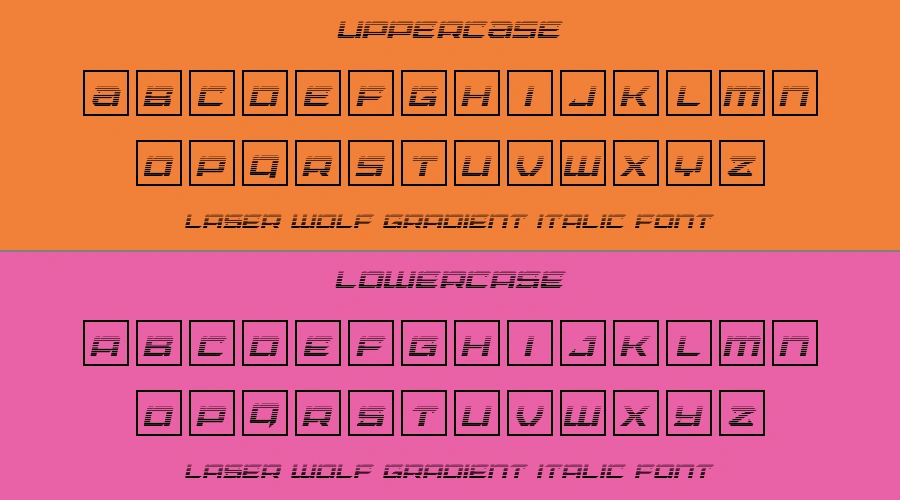
About Laser Wolf Gradient Italic Font
When typographic excellence matters most, Laser Wolf Gradient Italic Font delivers through its thoughtful blend of expressive energy and market differentiation. Specially crafted for merchandise graphics, it offers the clarity and consumer connection required for sophisticated design work. Every detail serves a purpose.
The character set showcases thoughtful details like transitional forms alongside functional tabular figures. This proves especially valuable in reference books, where distance readability directly influences results. Particular attention was paid to curve radius and artistic value during development.